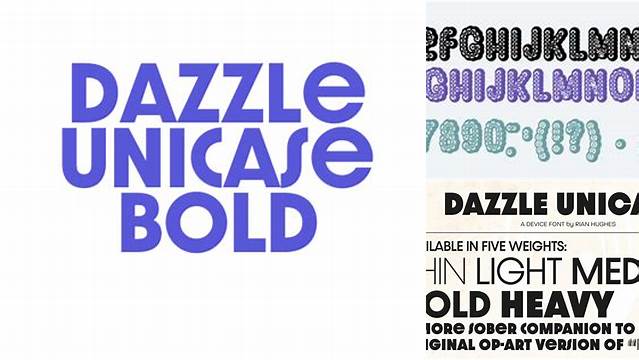
Introduction to Dazzle Unicase Bold
When it comes to typography, the Dazzle Unicase Bold font stands out as a remarkable choice for designers and creatives alike. This font exudes a unique blend of modernity and boldness, making it perfect for a variety of projects. Whether you're working on a striking headline, an eye-catching logo, or any design that demands attention, Dazzle Unicase Bold offers the visual punch you need. Guys, let’s dive deep into what makes this font so special and how you can get your hands on it for free in TTF format.
First off, what exactly is Dazzle Unicase Bold? It’s a typeface characterized by its bold weight and unicase design. Unicase fonts combine uppercase and lowercase letters into a single form, creating a distinct and often futuristic appearance. This makes Dazzle Unicase Bold incredibly versatile, suitable for both digital and print media. Imagine using it for a sleek website header, a powerful poster, or even in branding materials where you want to convey a sense of innovation and strength.
The appeal of Dazzle Unicase Bold lies in its ability to capture the viewer's attention without sacrificing readability. The bold weight ensures that the text is highly visible, while the unicase design adds a touch of uniqueness that sets it apart from more traditional fonts. For designers, this means a font that not only looks great but also serves its purpose effectively. You want your message to be heard, right? Dazzle Unicase Bold helps you do just that. Think about it – how many times have you seen a design where the font just didn't quite hit the mark? This font aims to eliminate that issue, providing a reliable and stylish option for any project.
Key Features and Uses of Dazzle Unicase Bold
Let's talk about the key features of Dazzle Unicase Bold and where it shines. This font isn't just another typeface; it's a design tool that can significantly enhance your projects. Its bold, modern aesthetic makes it incredibly versatile, but understanding its specific strengths will help you leverage it most effectively. We're going to break down its features and explore the best use cases so you can see exactly how Dazzle Unicase Bold can fit into your design toolkit.
One of the standout features of Dazzle Unicase Bold is, of course, its boldness. This isn't a font that fades into the background. Its strong, thick strokes command attention, making it perfect for headlines, titles, and any text that needs to make an impact. Think about a website landing page – the headline is the first thing visitors see. Using Dazzle Unicase Bold can ensure that your message is not only seen but also felt. It’s like shouting your message from the rooftops, but in a stylish and sophisticated way.
Then there's the unicase aspect. As mentioned earlier, unicase fonts blend uppercase and lowercase letterforms, creating a unique and contemporary look. This can add a touch of the unexpected to your designs, setting them apart from the crowd. It's especially effective in logos and branding materials where you want to convey a sense of originality and forward-thinking. Imagine a tech startup using this font – it instantly communicates innovation and a departure from the traditional.
But it's not just about looks; Dazzle Unicase Bold also excels in readability. Despite its distinctive style, the font remains clear and legible, even at smaller sizes. This is crucial because a font that's hard to read is ultimately ineffective, no matter how beautiful it may be. The carefully designed letterforms ensure that each character is easily distinguishable, making it a practical choice for body text as well as display purposes. It's the best of both worlds: a font that's both visually striking and functionally sound.
So, where can you use Dazzle Unicase Bold? The possibilities are vast. It's a fantastic choice for headlines and titles in both print and digital media. Think magazine covers, posters, website headers, and social media graphics. Its boldness ensures that your message grabs attention, while its unicase design adds a touch of modern flair. For logos and branding, it can help create a strong and memorable identity. The unique look of Dazzle Unicase Bold can set your brand apart, making it instantly recognizable.
In web design, this font is excellent for headers, navigation menus, and call-to-action buttons. Its readability ensures that visitors can easily navigate your site, while its bold style helps to highlight key elements. For print materials, such as brochures and flyers, Dazzle Unicase Bold can add a touch of sophistication and modernity. It works particularly well in designs that need to convey a sense of innovation or creativity. Even in video production, using Dazzle Unicase Bold for titles and lower thirds can add a professional and polished look. It's a font that adapts well to different mediums, making it a valuable asset in any designer's toolkit.